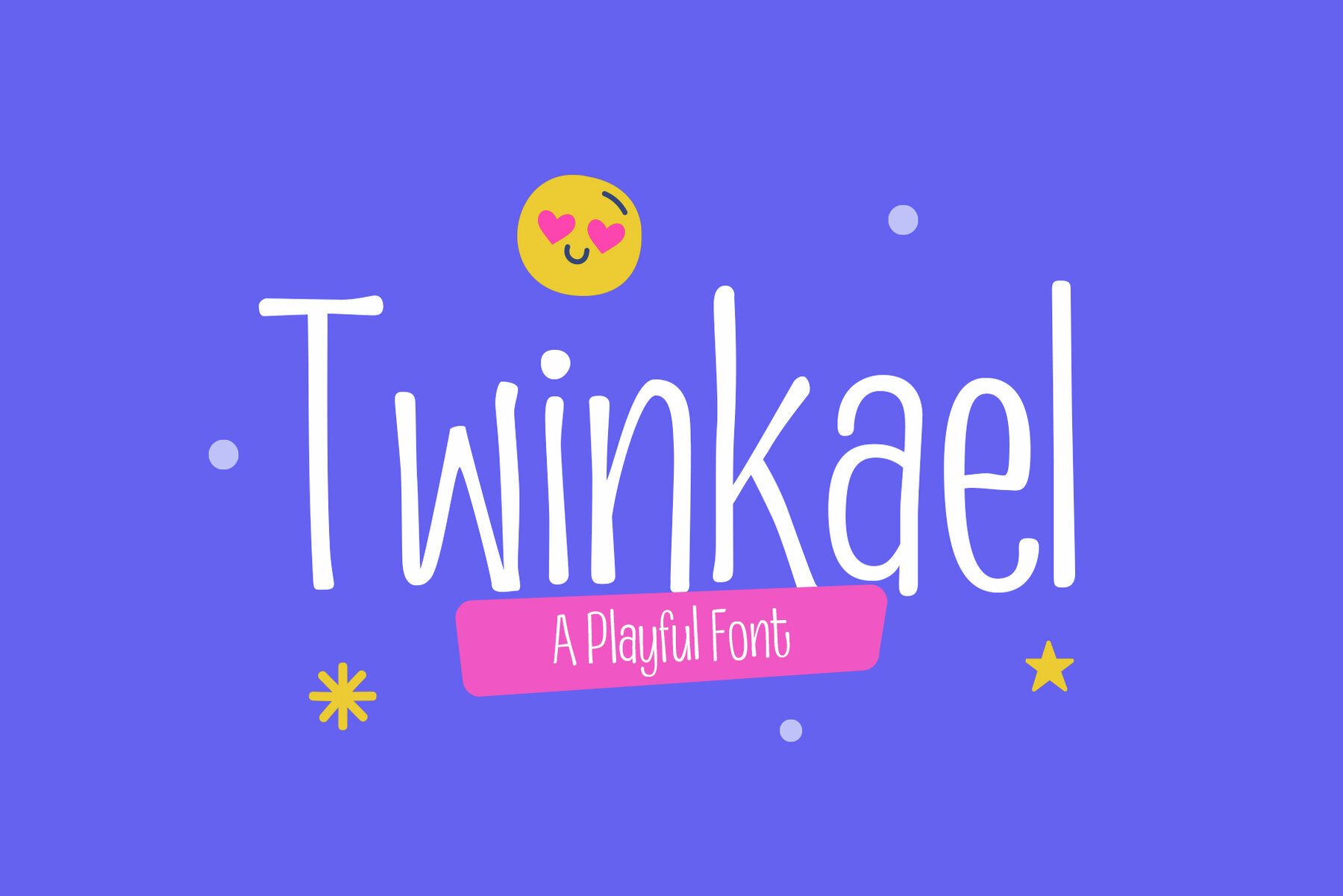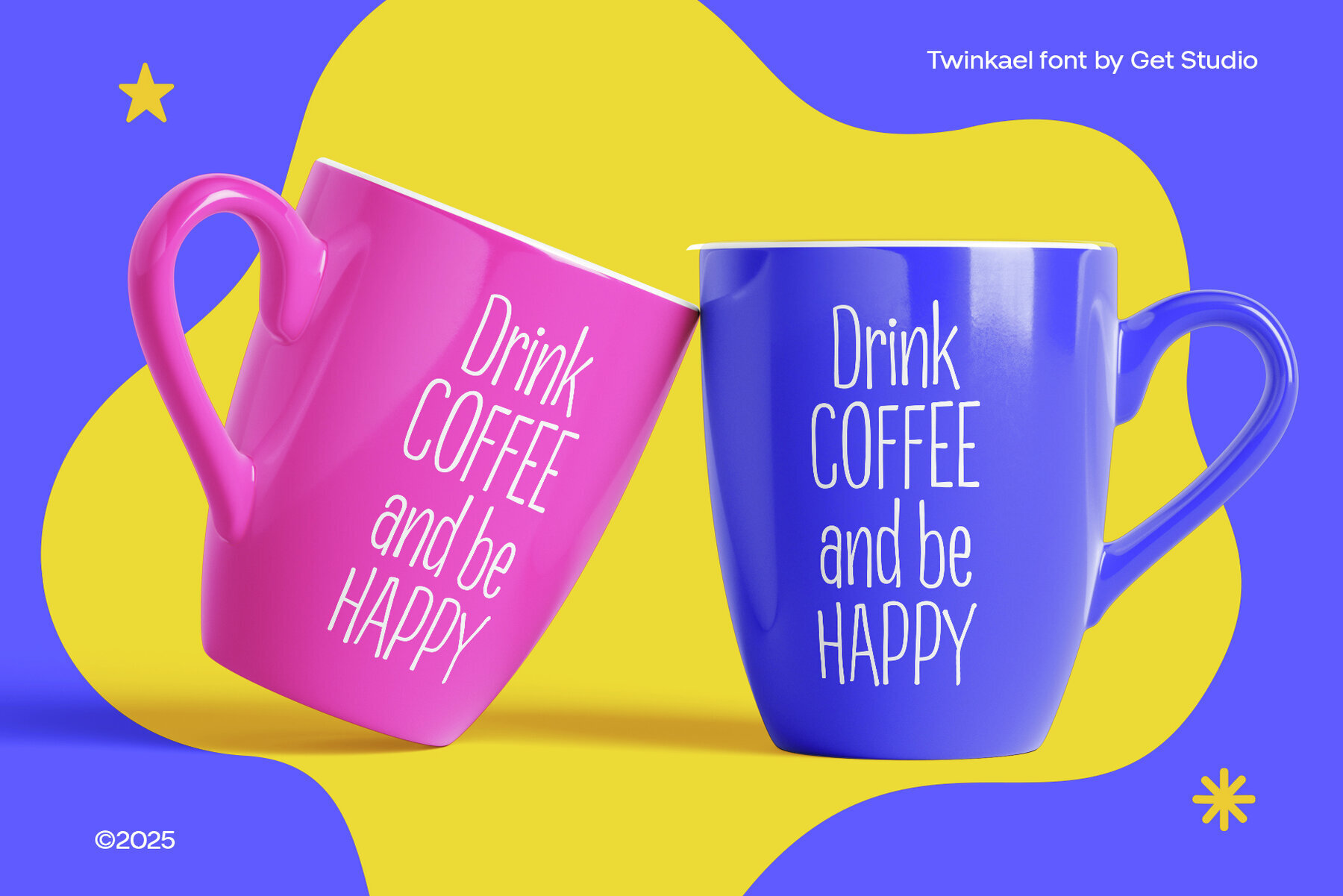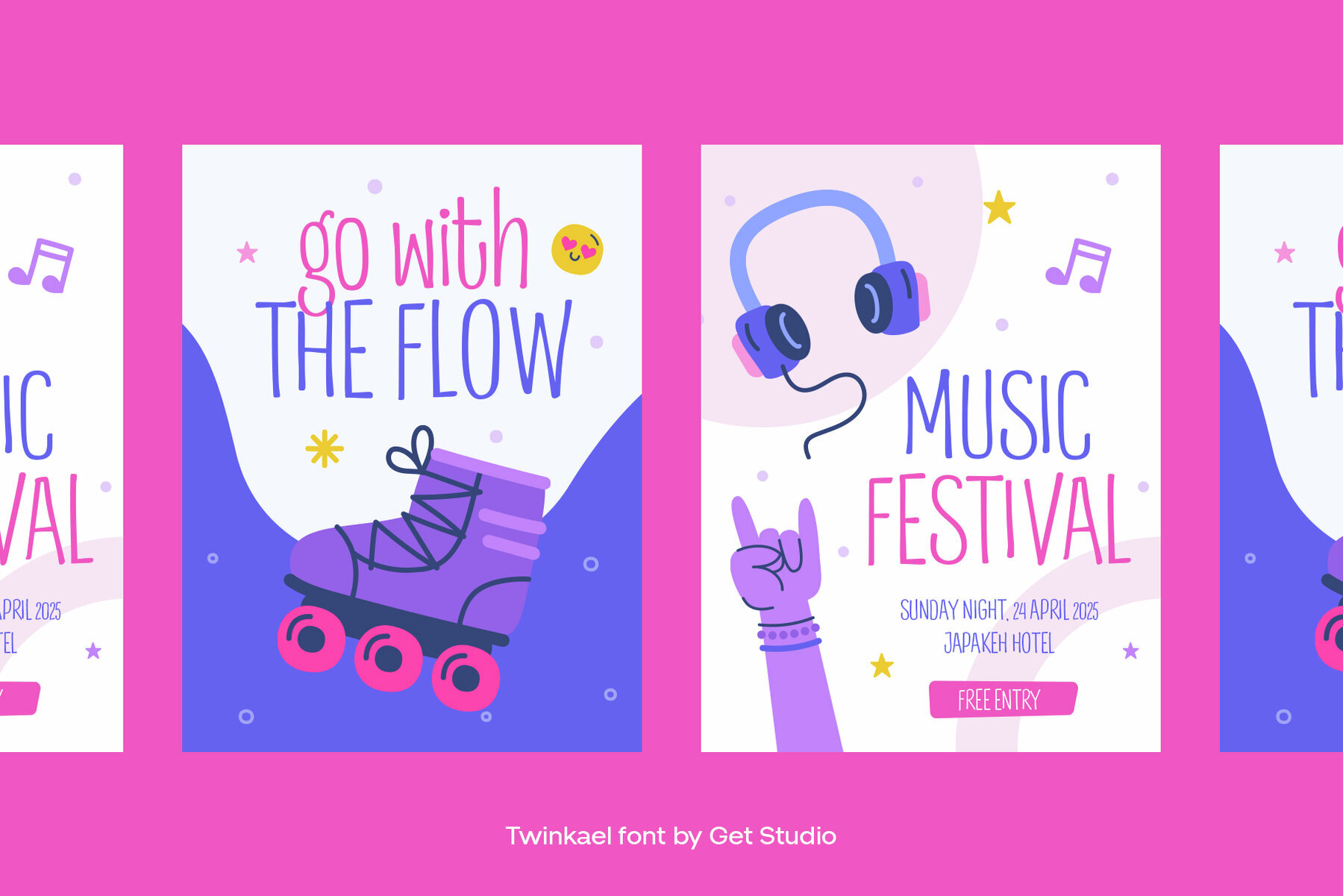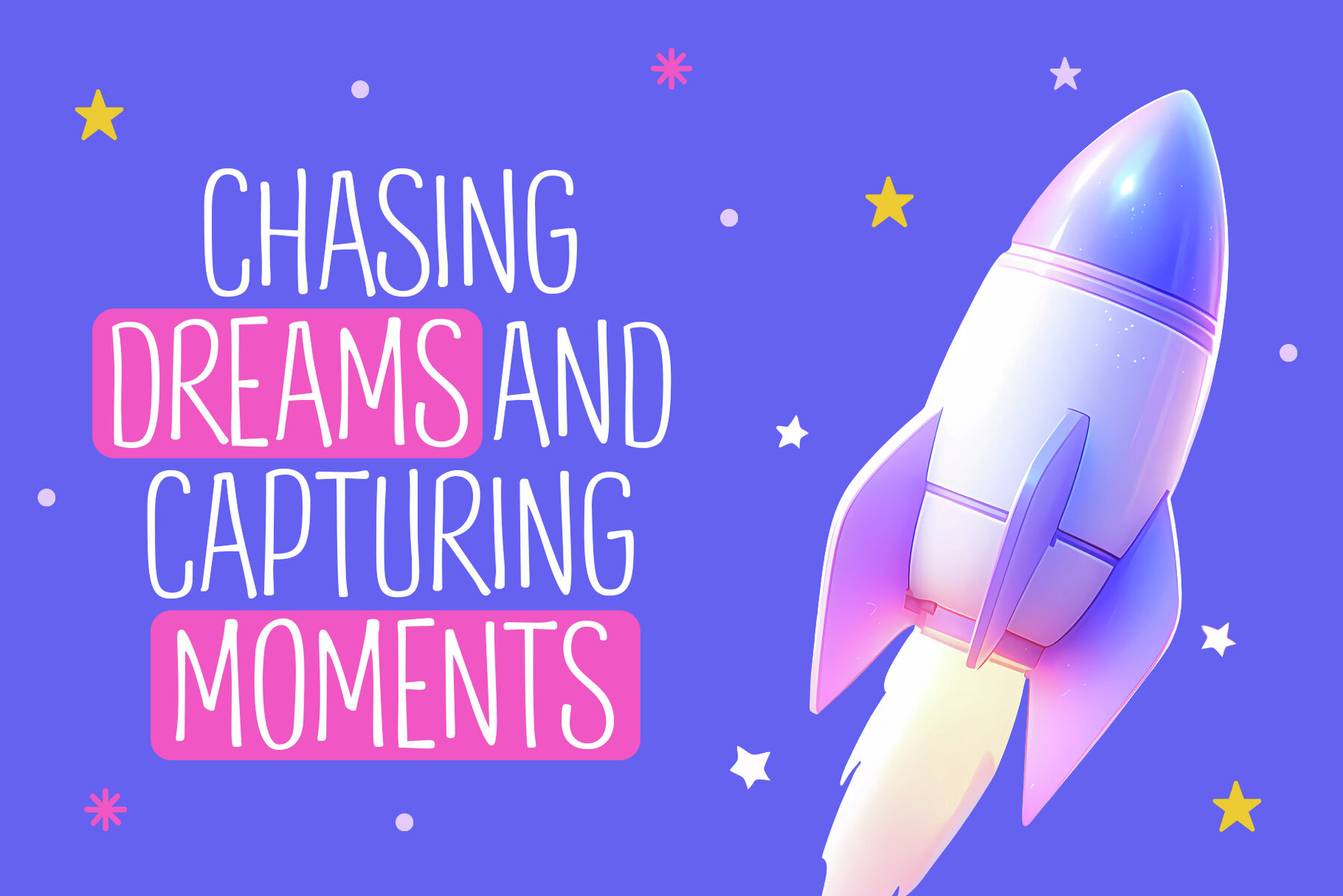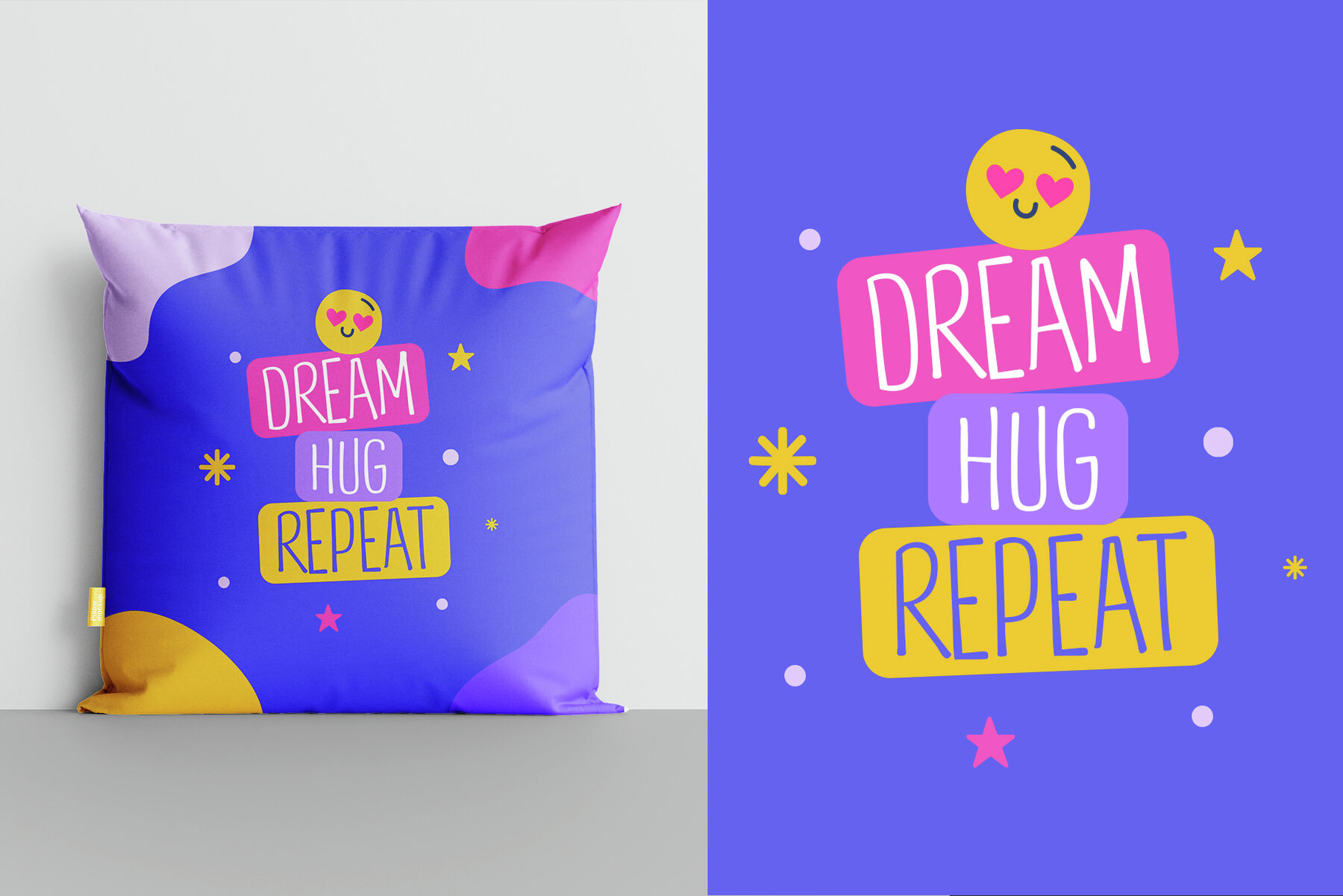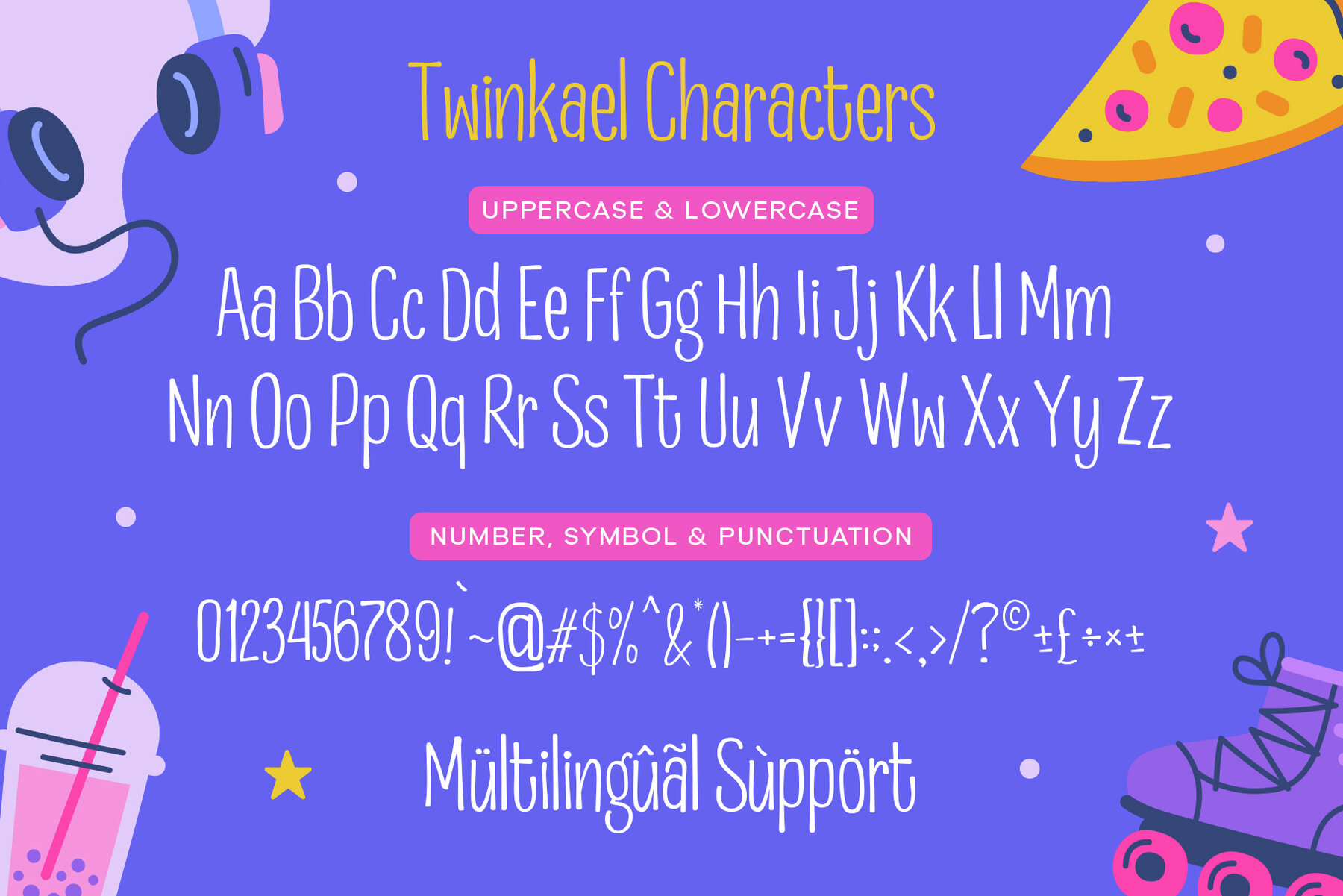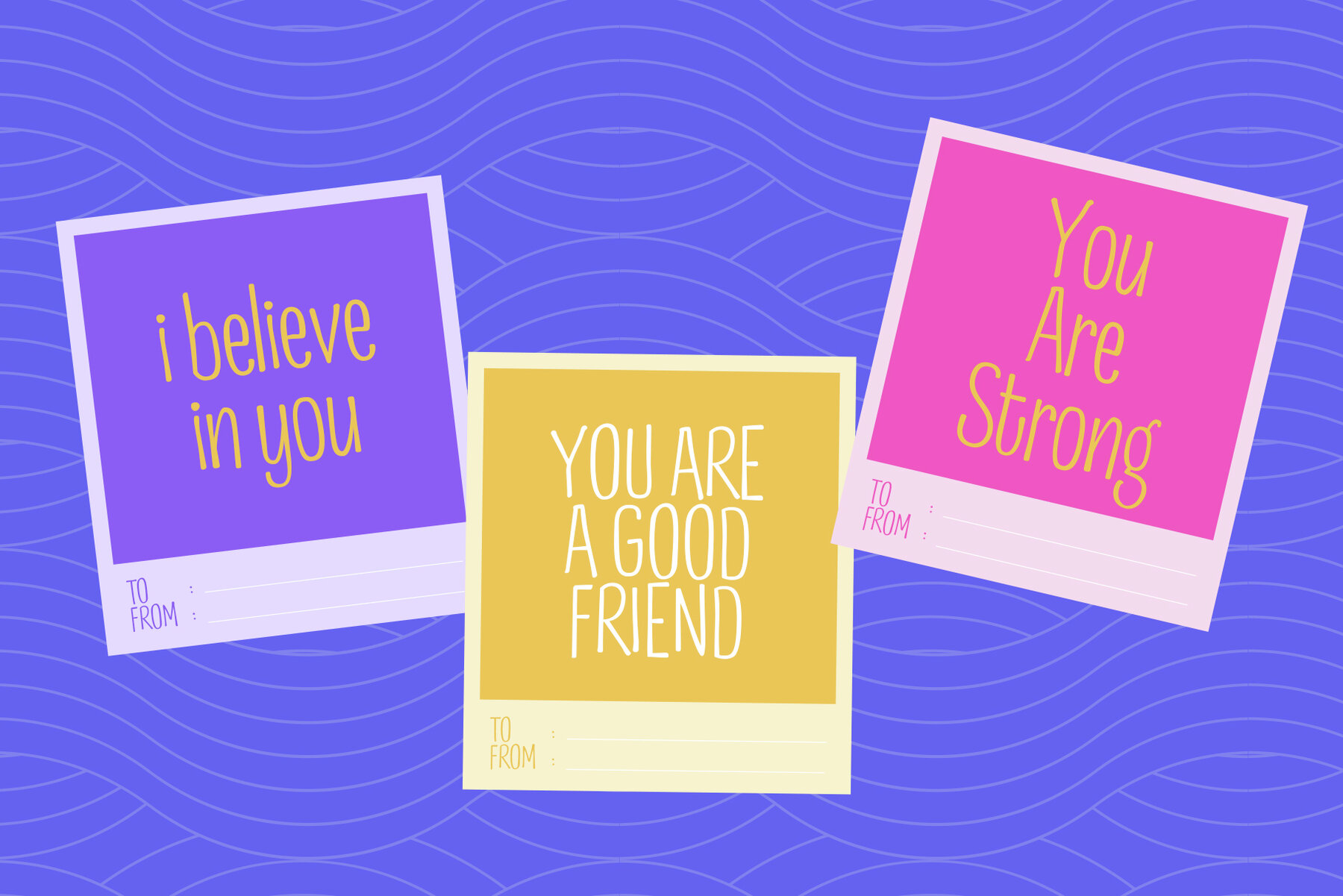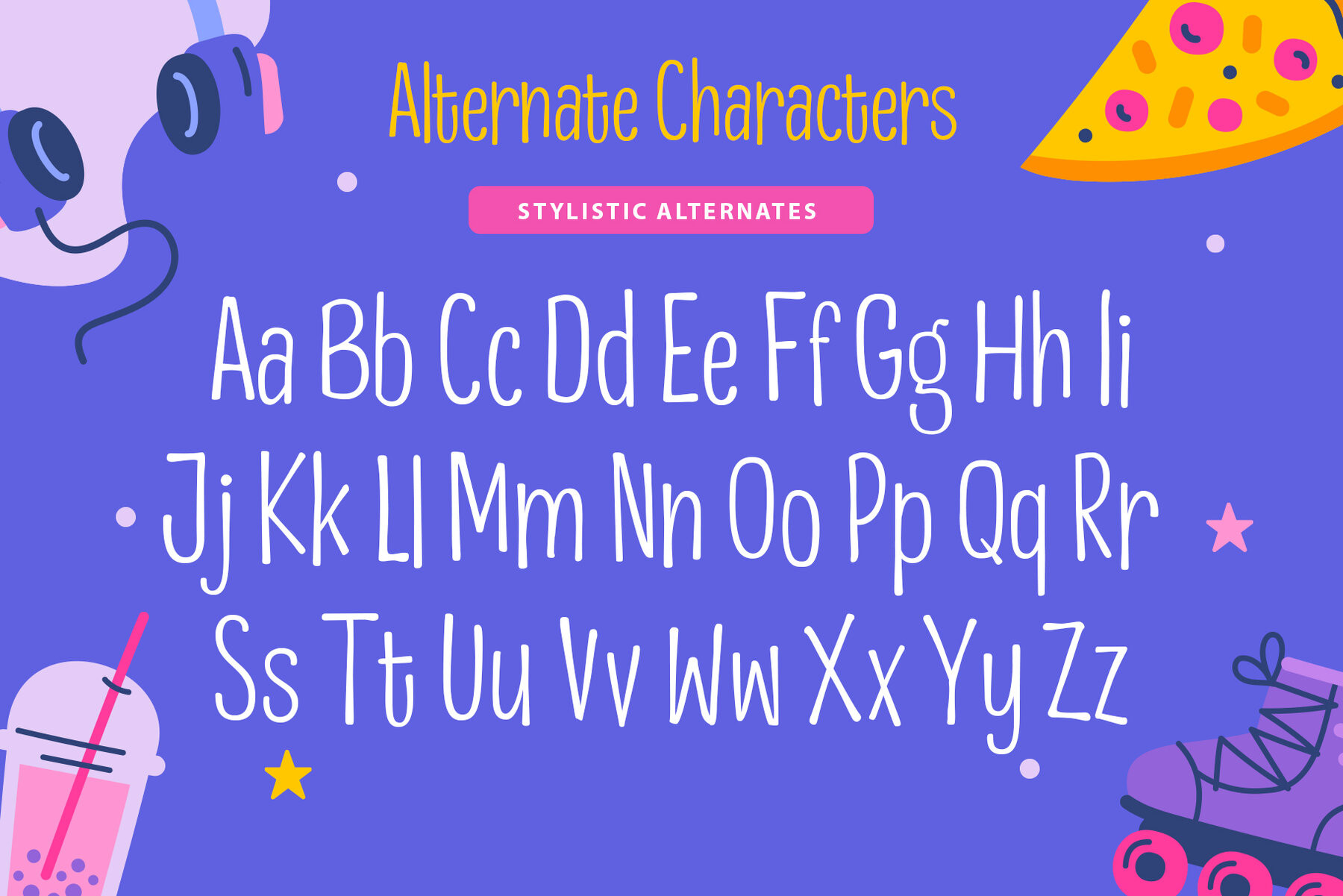
Twinkael Font
Twinkael is a cheerful handwritten font with a fun and friendly vibe. Its tall, slim letters and quirky strokes make it perfect for kids-themed projects, playful branding, school materials, or anything that needs a joyful touch. Great for quotes, cute logos, packaging, and more—Twinkael brings a smile to your design!